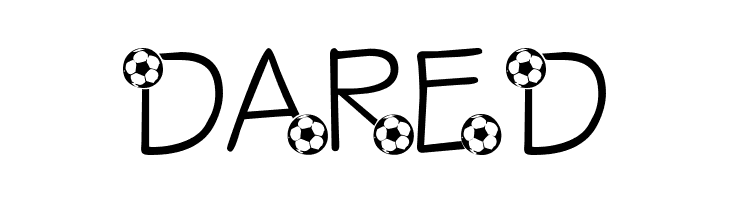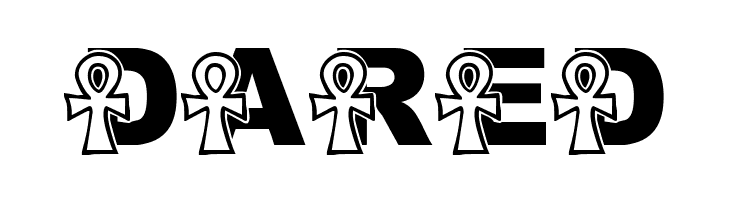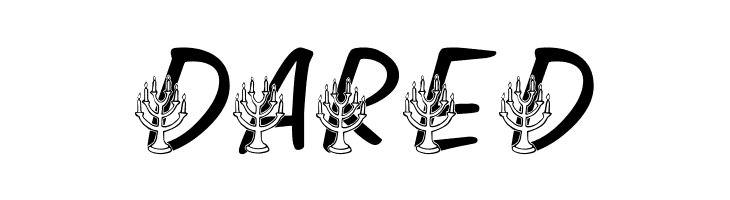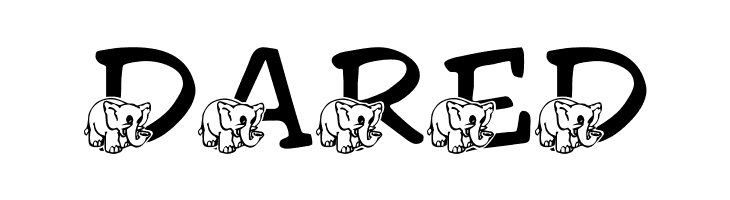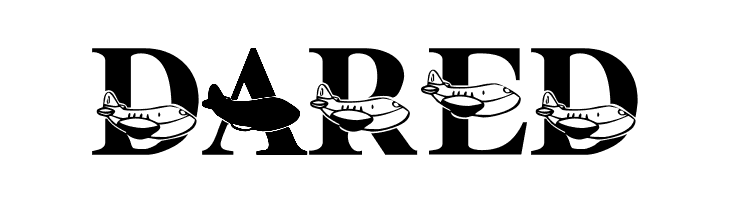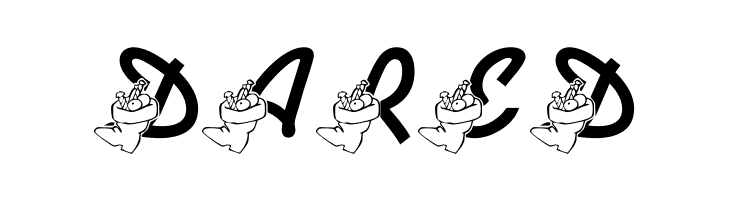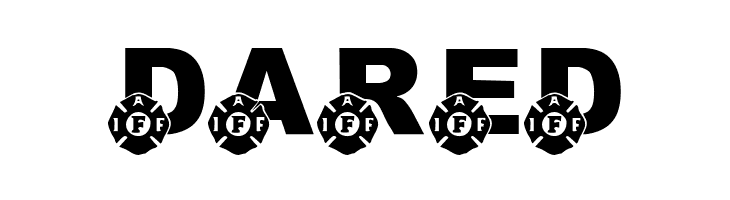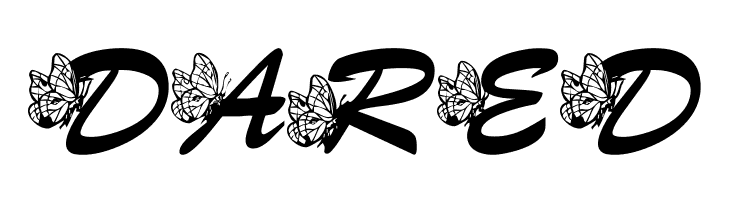
( London's Letters - www.londonsletters.com/ ) A playful font with soccer ball motifs, ideal for sports-themed designs. Download 41 Downloads@WebFont
( London's Letters - www.londonsletters.com/ ) A decorative font with an integrated ankh symbol in each character. Download 83 Downloads@WebFont
( London's Letters - www.londonsletters.com/ ) A decorative font with bold, italicized letters and candelabra motifs for a festive look. Download 46 Downloads@WebFont
( London's Letters - www.londonsletters.com/ ) A bold, playful font with elephant illustrations accompanying each letter. Download 50 Downloads@WebFont
( London's Letters - www.londonsletters.com/ ) A bold serif font with integrated airplane illustrations for a playful touch. Download 52 Downloads@WebFont
( London's Letters - www.londonsletters.com/ ) A whimsical, cartoon-inspired font with bold, script-like letters and playful characters. Download 52 Downloads@WebFont
( London's Letters - www.londonsletters.com/ ) A bold, decorative font featuring unique emblematic designs within each character. Download 68 Downloads@WebFont
( London's Letters - www.londonsletters.com/ ) A decorative script font with integrated butterfly motifs. Download 104 Downloads@WebFont